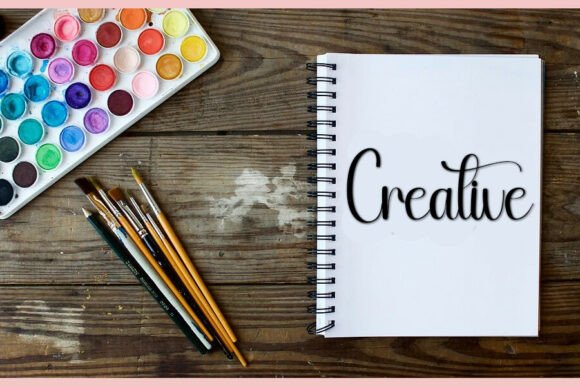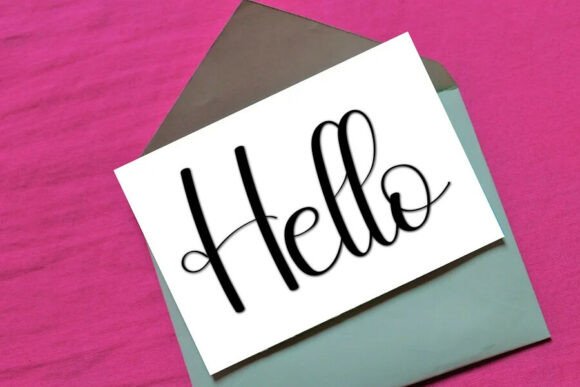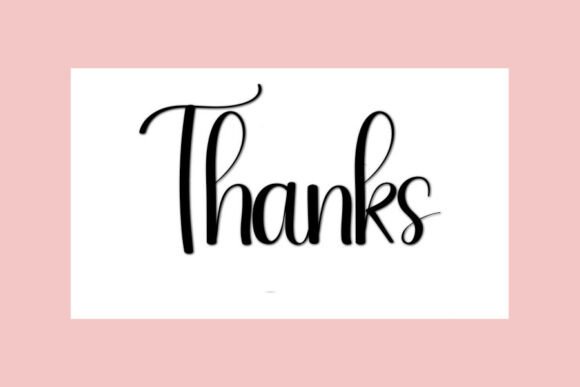
Introducing Happy Birthday Font: Elevate Your Designs with Artistic Flair
Are you tired of using the same old fonts for your designs? Look no further! Happy Birthday Font is a stylish script font that exudes artistic flair and contemporary elegance, perfect for designers and crafters looking to add a creative and sophisticated touch to their work.
The Art of Hand-Painted Calligraphy
Happy Birthday Font captures the essence of hand-painted calligraphy with a modern twist. Featuring fluid brush strokes, dynamic curves, and expressive letterforms, this font is reminiscent of traditional calligraphy, but with a fresh and modern spin. The natural flow of the font makes it perfect for a variety of design applications, from logos and invitations to packaging and social media graphics.
Key Features of Happy Birthday Font
- Fluid Brush Strokes: Happy Birthday Font features fluid brush strokes that give it a natural, hand-painted look.
- Dynamic Curves: The font’s dynamic curves add a touch of elegance and sophistication to any design.
- Expressive Letterforms: Each letterform is carefully crafted to convey a sense of artistic flair and creativity.
- Modern Twist: Happy Birthday Font takes traditional calligraphy and gives it a modern spin, making it perfect for contemporary designs.
Design Applications
In conclusion, Happy Birthday Font is a stylish script font that exudes artistic flair and contemporary elegance. With its fluid brush strokes, dynamic curves, and expressive letterforms, it’s perfect for designers and crafters looking to add a creative and sophisticated touch to their work. Whether you’re designing logos, invitations, packaging, or social media graphics, Happy Birthday Font is sure to deliver both visual impact and versatility.